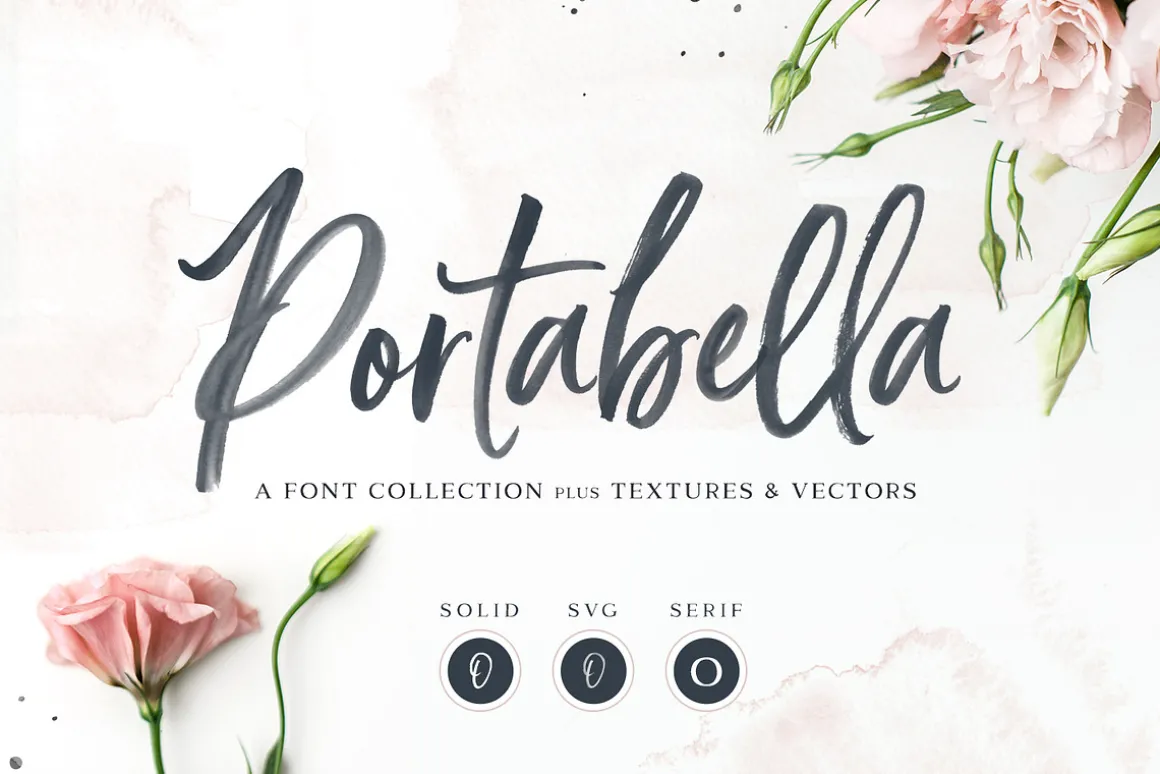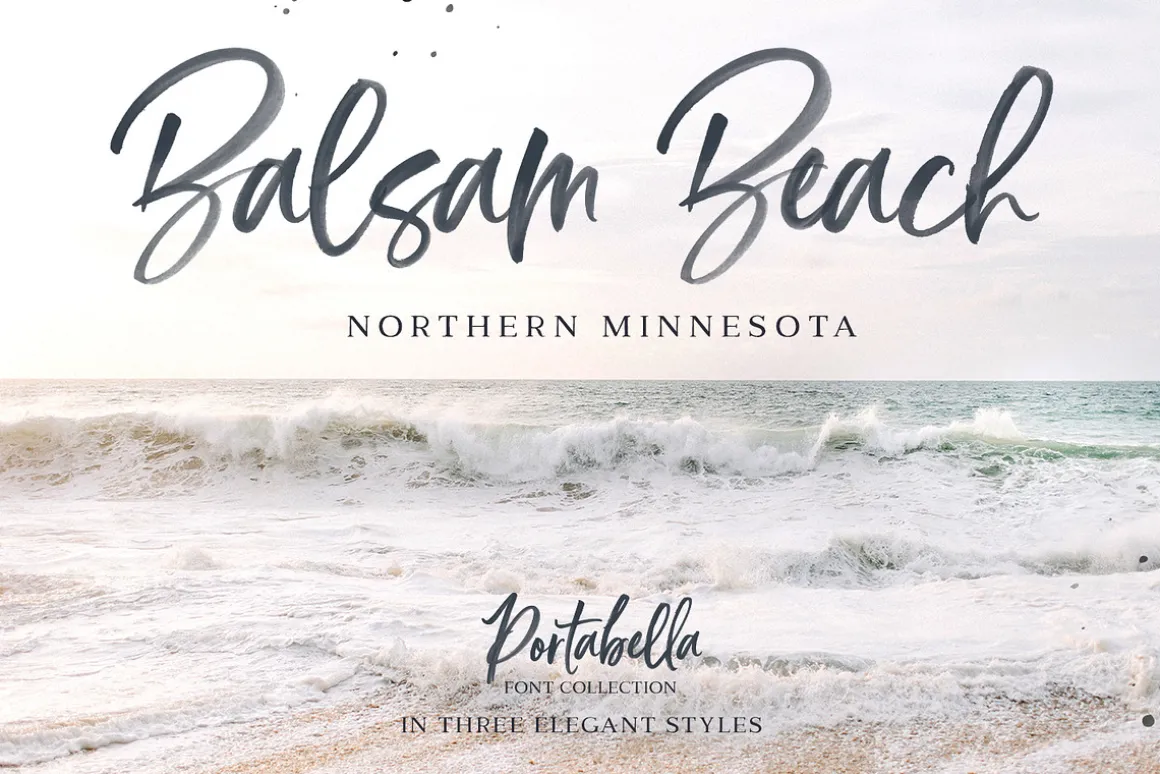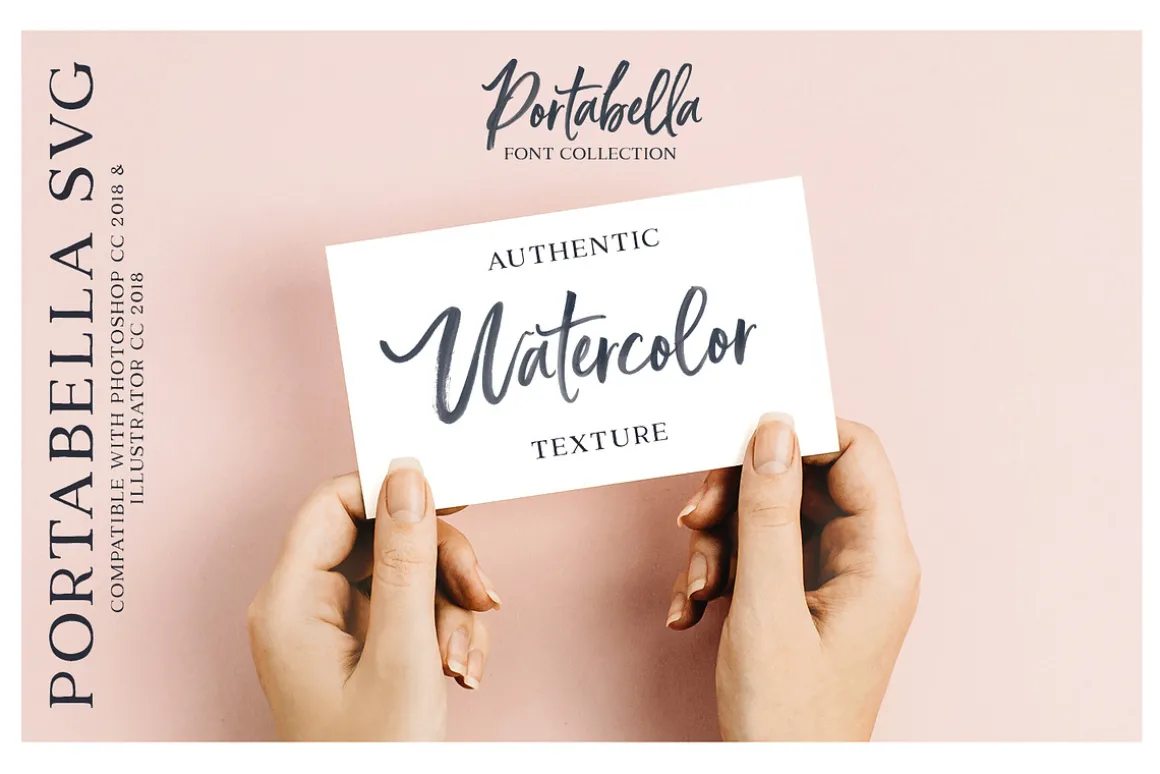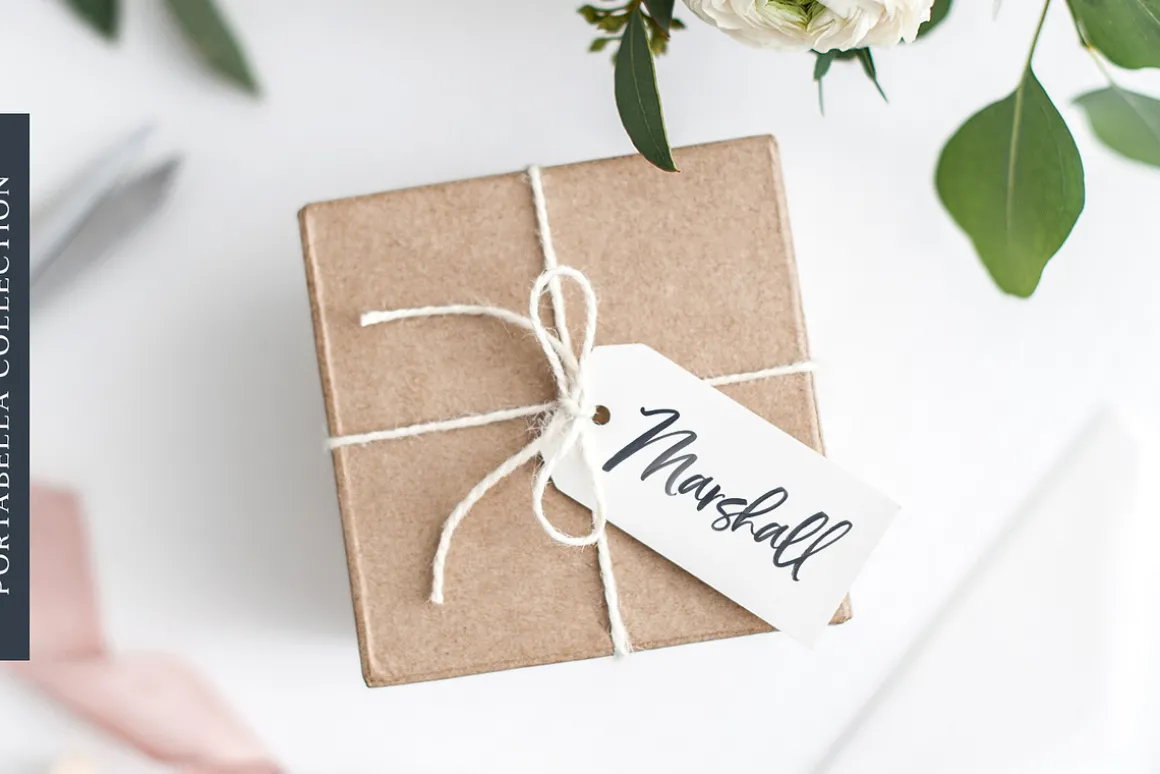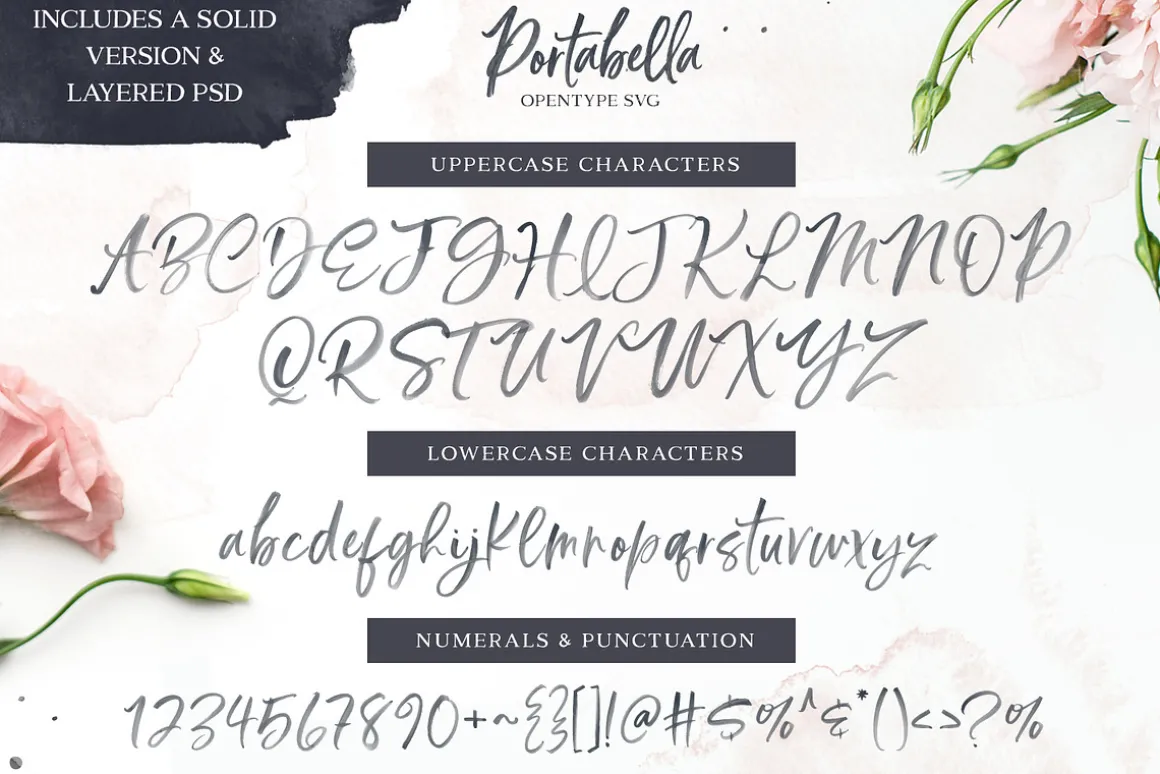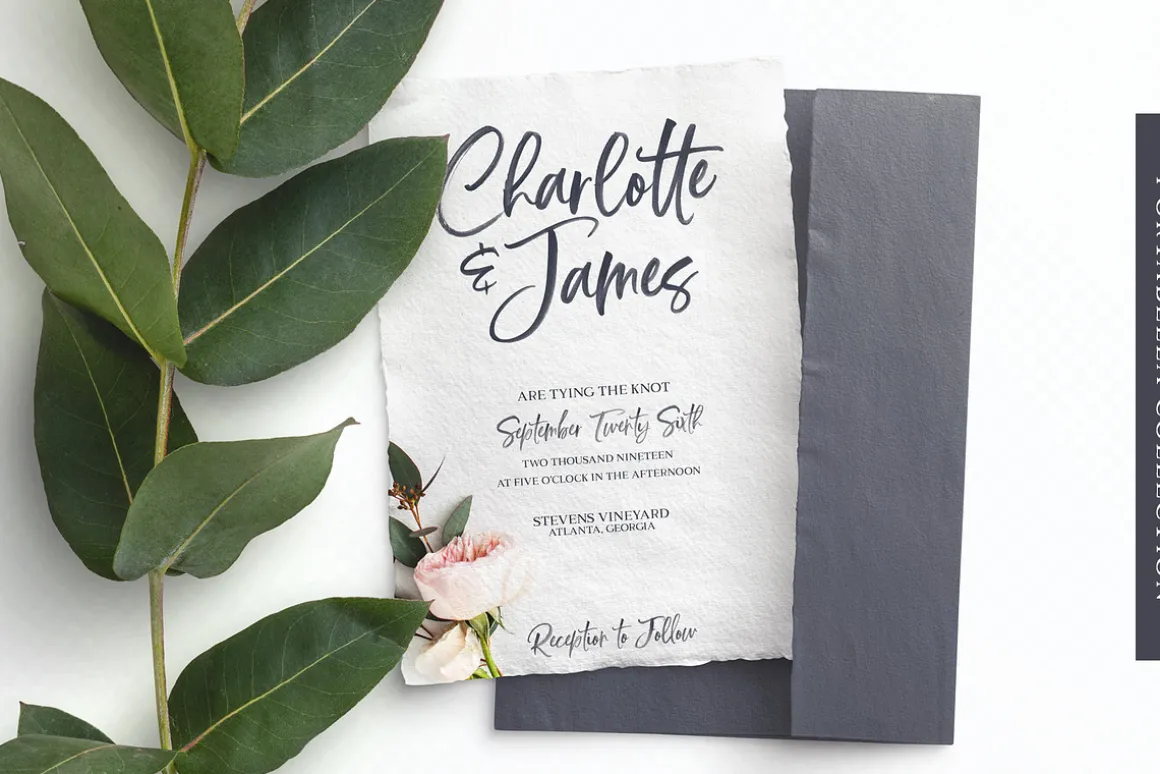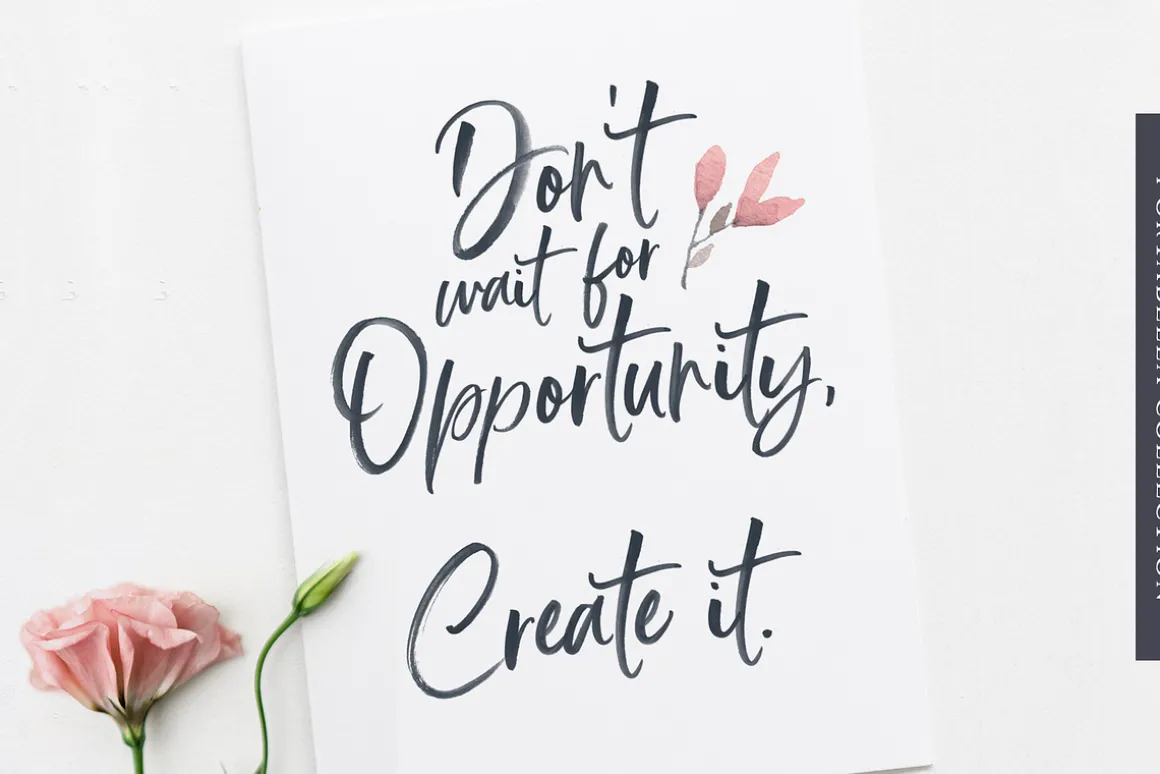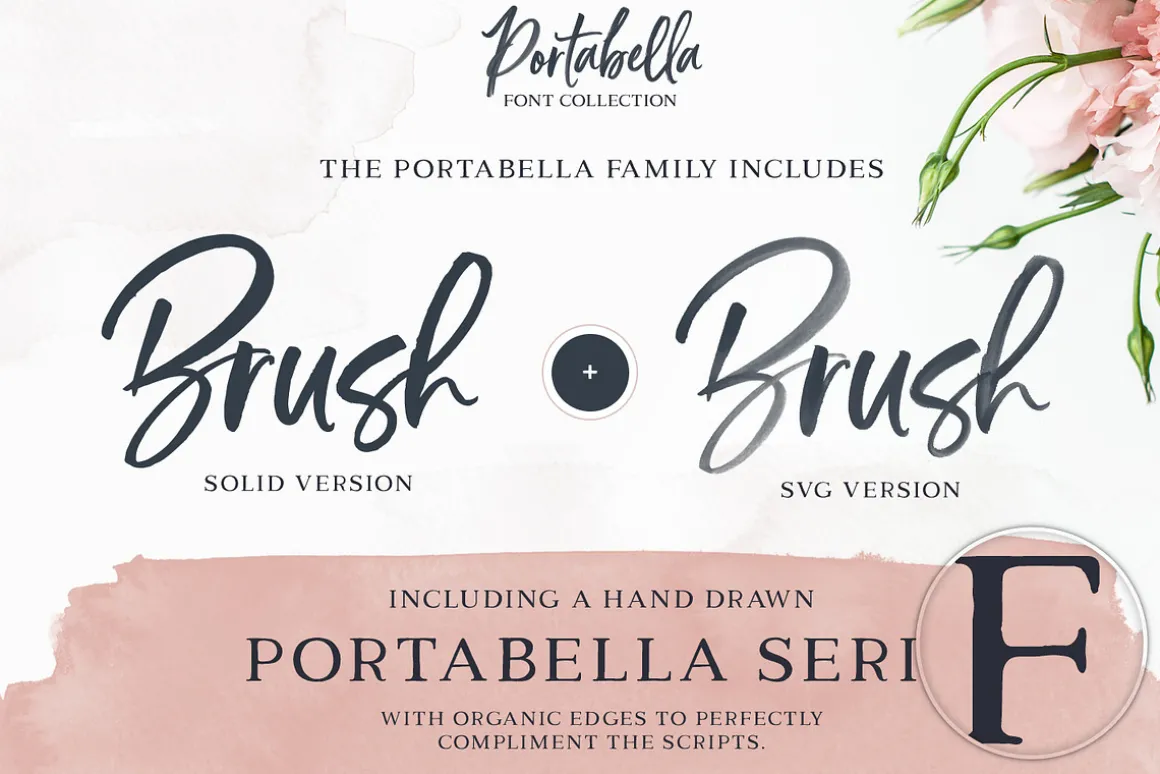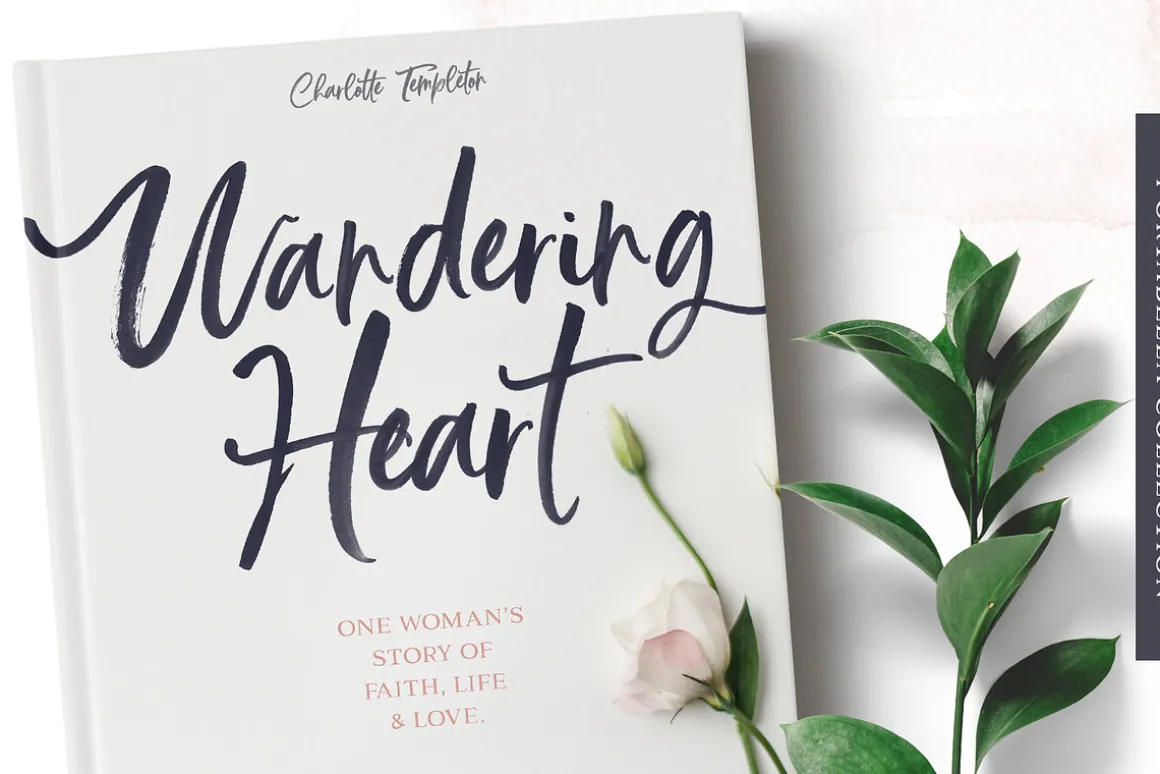
Say hello to The Portabella Collection! This elegant font duo boats a hand painted script, delicately-drawn serif, and a bonus SVG style; as well as brand new watercolor textures, transparent watercolor PNGs, and a set of hand-drawn floral elements! Add this gorgeous, “go-to” kit to your design arsenal today! 🙂
The Portabella Collection Includes:
- 1.) Portabella Solid (OTF) – A traditional hand-painted and vector-based font, which includes ligatures, Western European Language Support and an elegant, hand-brushed texture.
- 2.) Portabella Serif (OTF) – A hand drawn serif with subtly textured edges for a perfect pairing with Portabella Script (and Portabella SVG).
- 3.) Portabella SVG (OTF) – A bonus transparent SVG style, to create gorgeous, realistic watercolor typography. With built-in texture, there’s no need for Photoshop overlays or fancy filters. Just type and go!
- 5.) Portabella Floral Elements – 28 hand drawn floral elements (AI & EPS) for your creative pleasure. Pair these with the Portabella fonts to create delicate logos, wedding invites, branding and more.